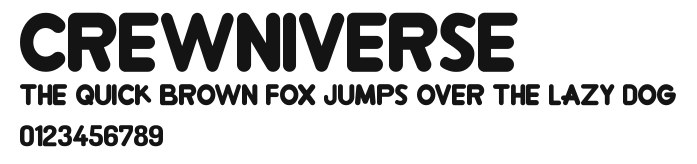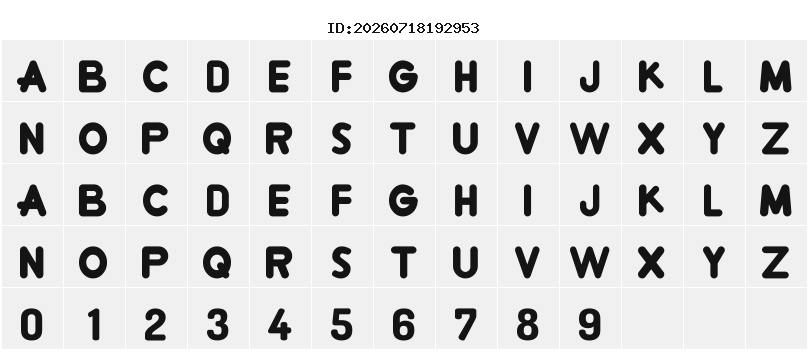
• Copyright: Crewniverse Font V.5 Crewniverse is a font that replicates the one used for the title cards of the TV show Steven Universe(tm), as well as the logo of the Steven Crewniverse's Tumblr. 2015-2016 - Font by MaxiGamer - maxigamer.deviantart.com Made in FontForge. Steven Universe(tm) was created by Rebecca Sugar and is a trademark of Cartoon Network.
About Crewniverse.ttf
Crewniverse.ttf is a modern, elegant sans-serif font designed for ultimate readability and visual harmony. Perfect for branding, headlines, web design, and print materials.